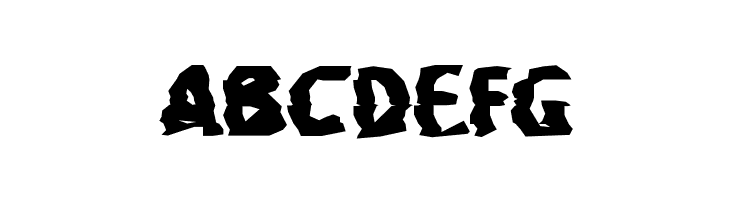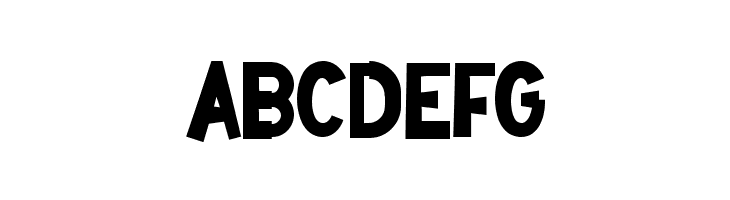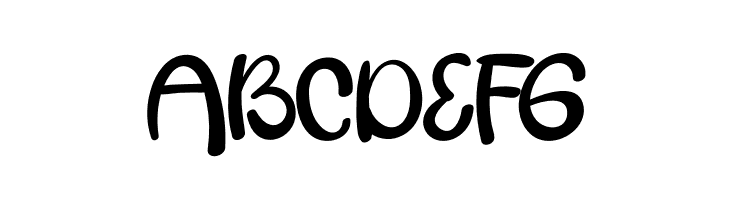
Back To Fishing Font
Font by Eddy Goodboy
A playful, bold handwritten font with a casual and friendly style.
Cartoon Town Font
Font by Creaditive Design
A playful, bold font with a cartoon-like, hand-drawn style.
Cement Stone Font
Font by wep
A rugged, stone-like font with bold, jagged edges and a three-dimensional effect.